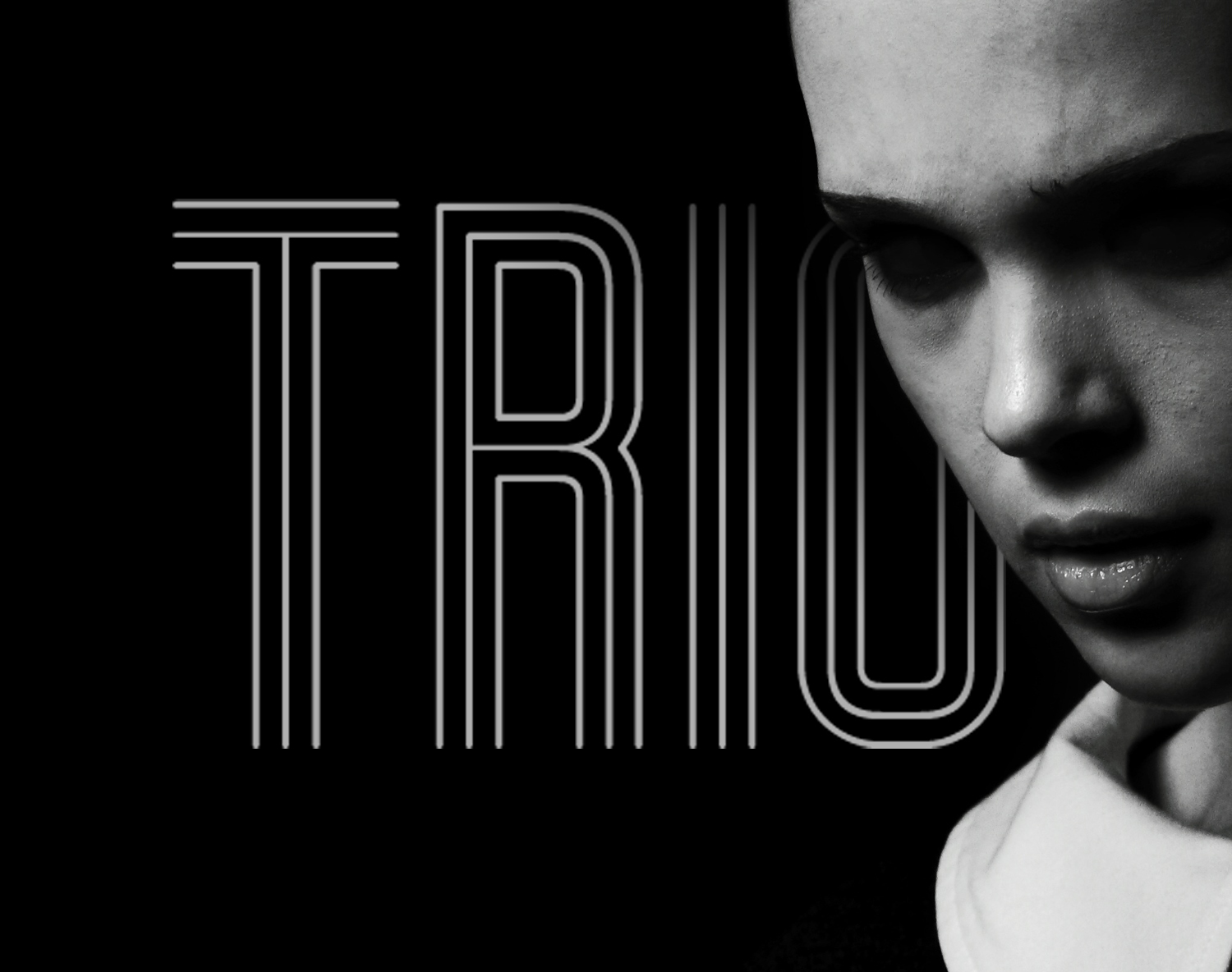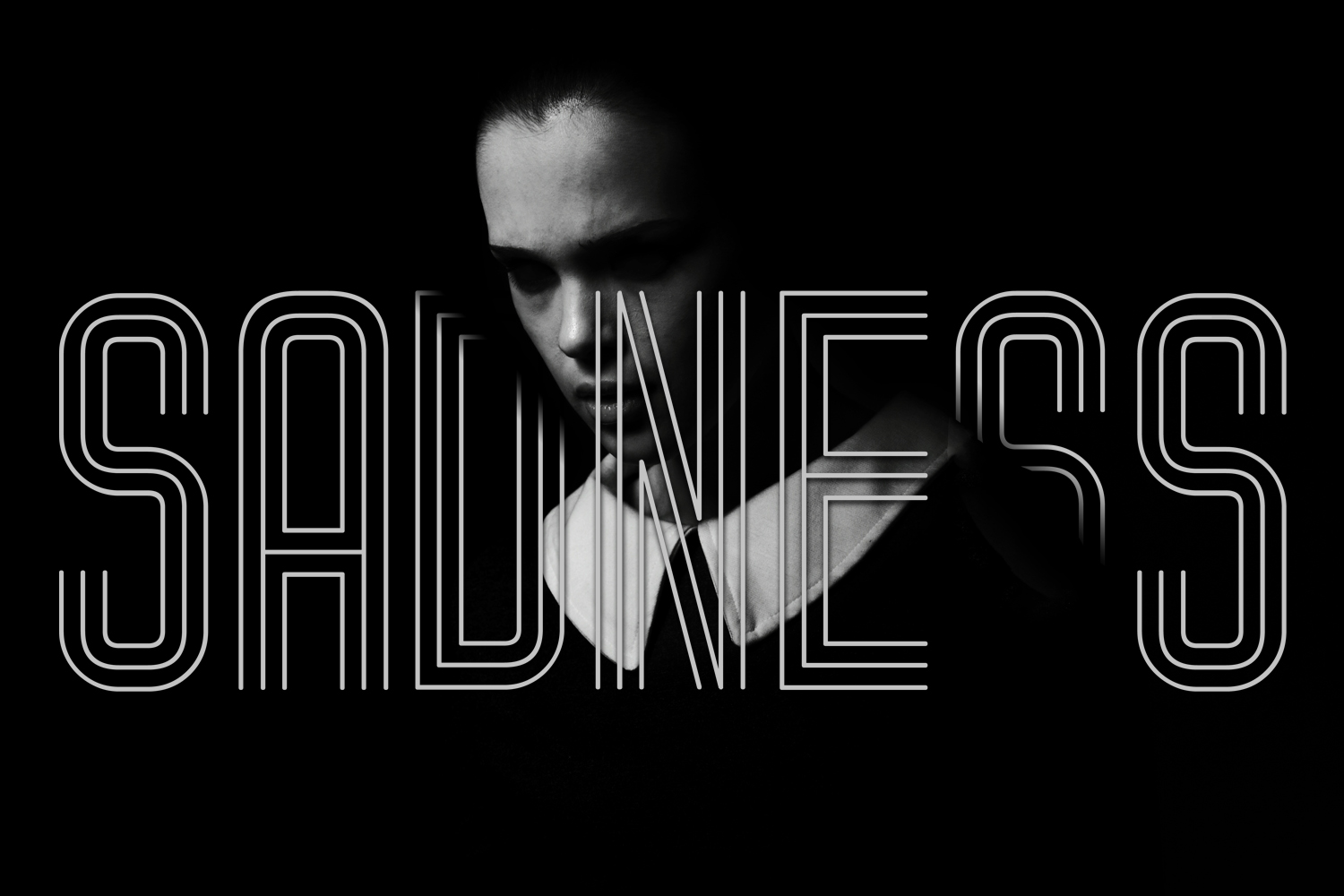
Trio
About Trio Font
Trio is a stunning, elegant free font created by Vladimir Nikolic.
This unique font is great for branding and has a unique look & feel where every character consists out of 3 separate lines.